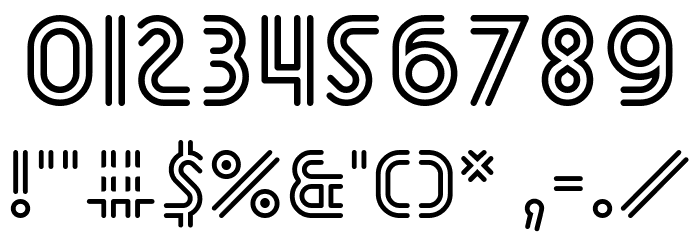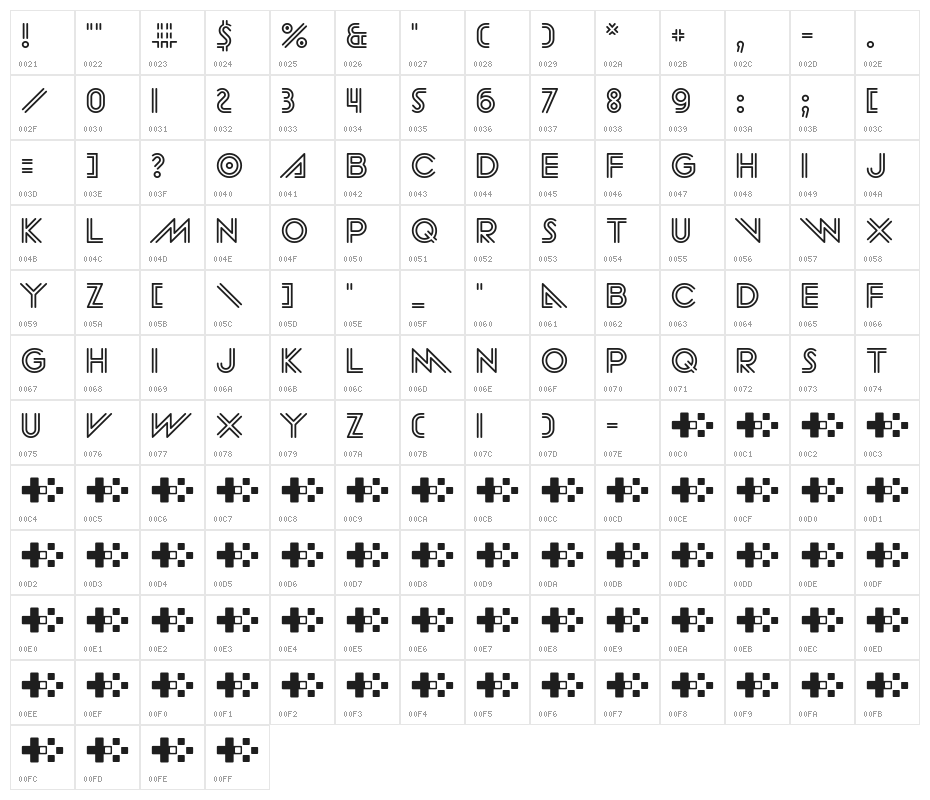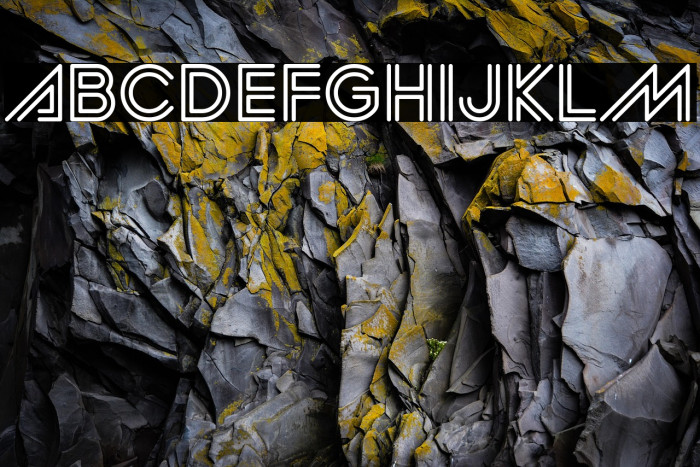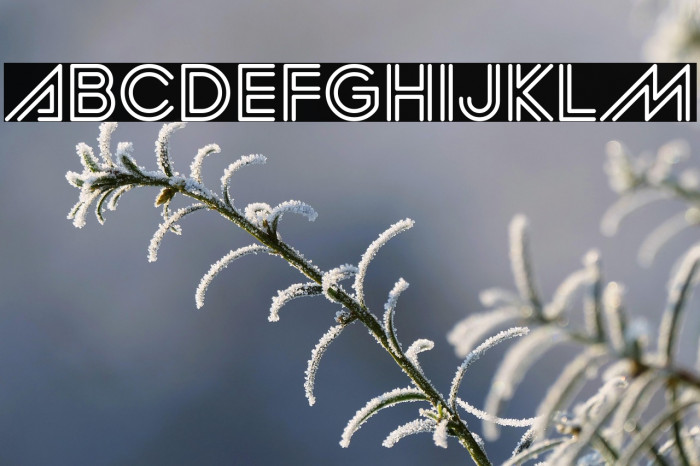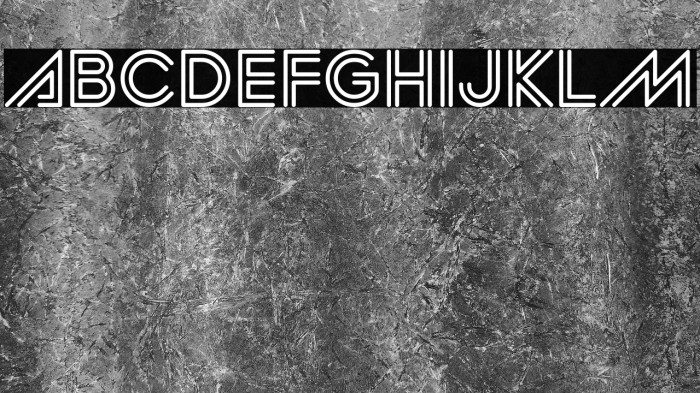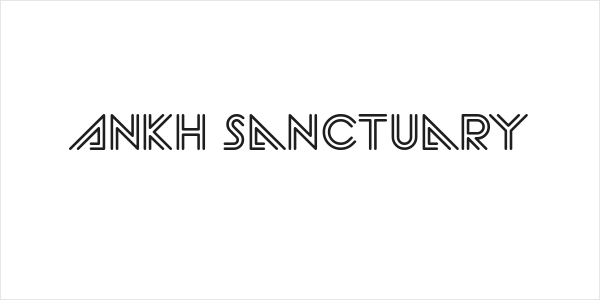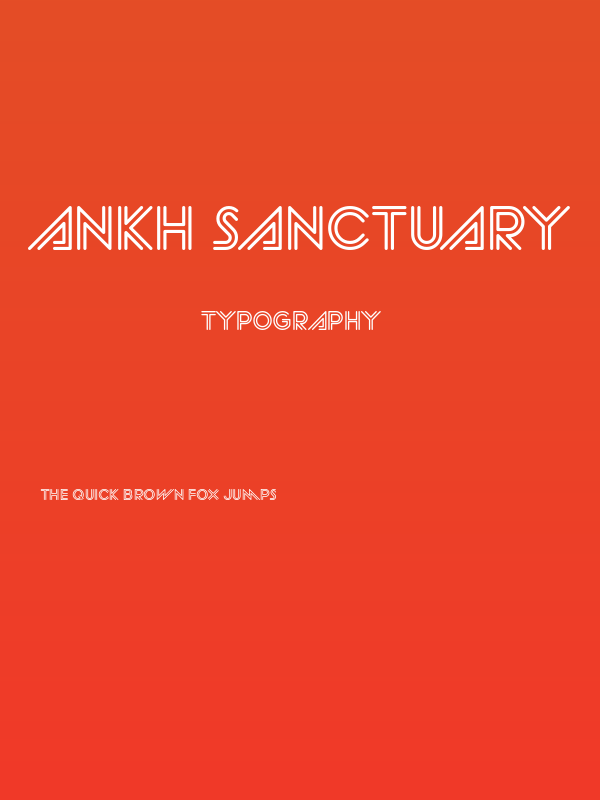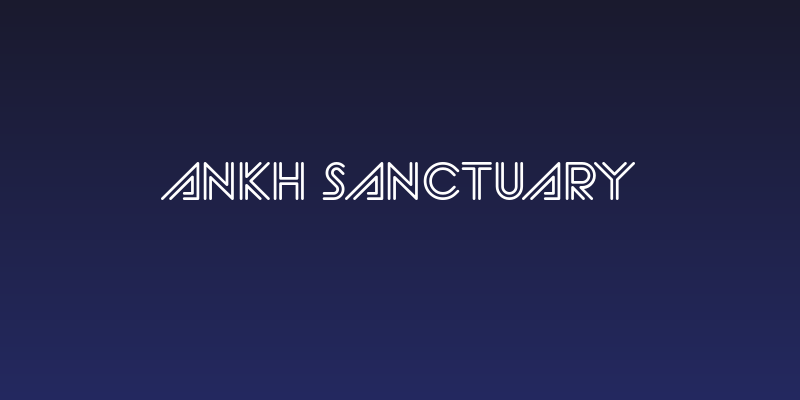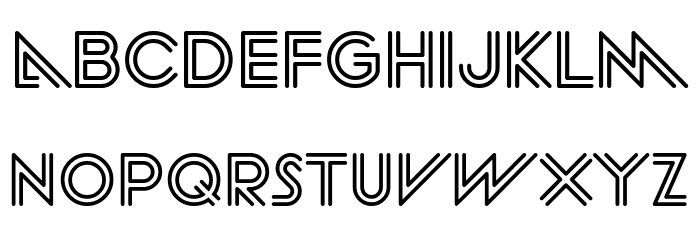
Ankh Sanctuary Font
Ankh Sanctuary Description
This font features a modern, geometric design with a distinct double-line structure that creates a sense of depth and dimension. The uppercase letters are bold and angular, with sharp edges and clean lines. The lowercase letters maintain the same geometric style, offering a cohesive look throughout. Numbers are equally bold and follow the same double-line pattern, ensuring consistency across all characters. Special characters are uniquely designed, fitting seamlessly with the overall aesthetic. This font's unique style makes it stand out, offering a contemporary and artistic flair.